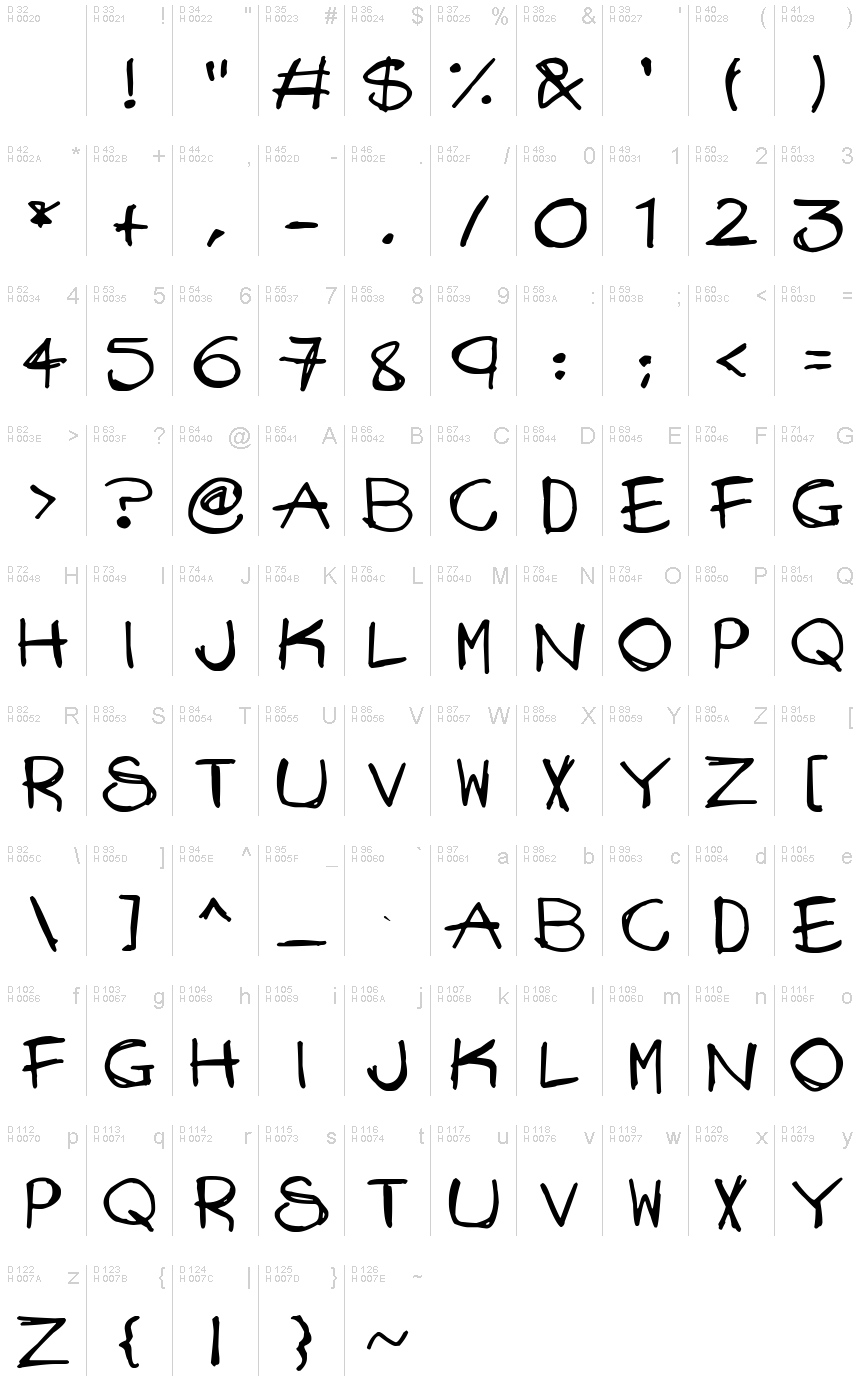
Mad Stick Brush
Mad Stick Brush is a captivating handwritten font designed by Darrell Flood. Its bold, expressive strokes exude an undeniable sense of energy and character.
The font's organic, freeform aesthetic lends itself seamlessly to a wide range of design applications, from eye-catching headlines and posters to rustic branding and packaging. The interplay of thick and thin lines, coupled with the natural variations in pressure and flow, creates a truly unique and visually compelling typeface.
Mad Stick Brush effortlessly bridges the gap between the handcrafted and the digital, making it an invaluable asset for designers seeking to infuse their work with a distinctive, handmade charm.